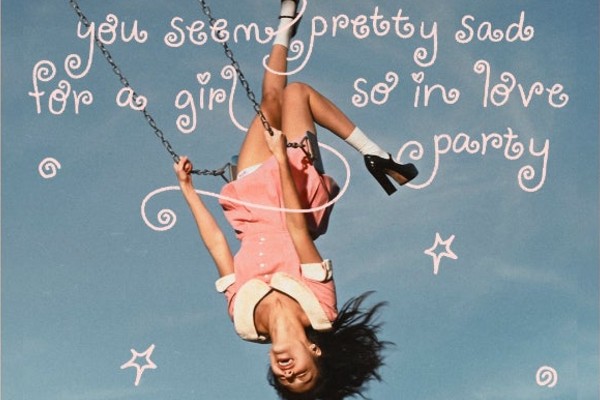
The font that looks most like the logo used on the Olivia Rodrigo album called You Seem Pretty Sad For A Girl So In Love is a typeface by the name of Oliva Regular.
This font was actually created by one of Olivia's fans. To the best of our knowledge, there is no official font for this album - which means that it was most likely a custom design made by one of the recording stuio's in-house graphic designers.
We really love this Olivia Rodrigo font and think that it does great justice to the original. It's a very pretty and curly typeface. Take it for a drive with our cool font generator tool below. Alternatively, you can download it, install it on your computer, and then use it in your favourite graphics program (Photoshop ?) to create you own unique designs.